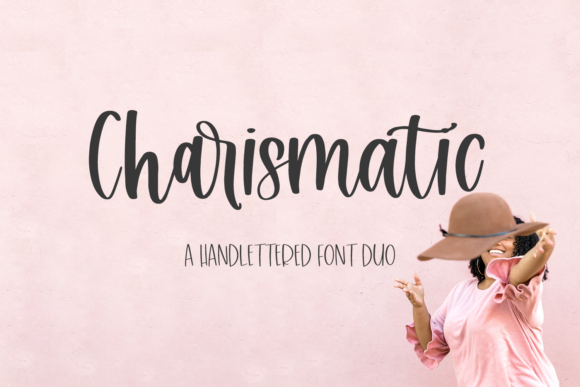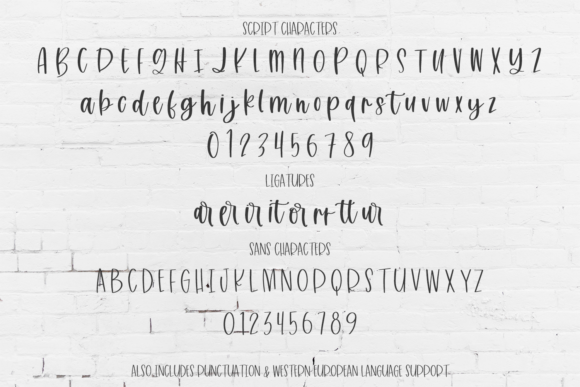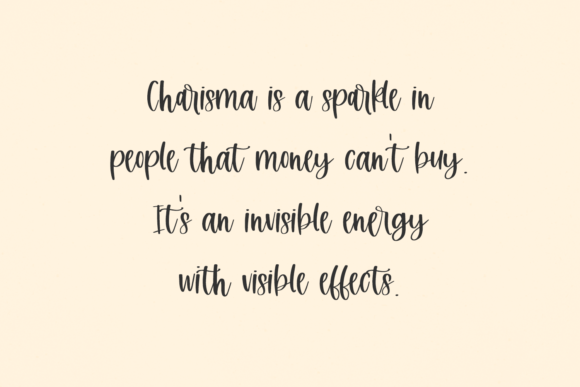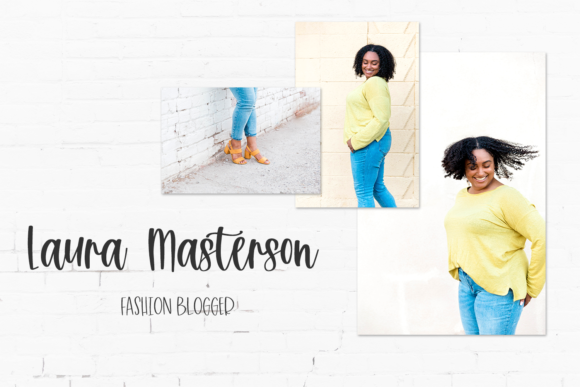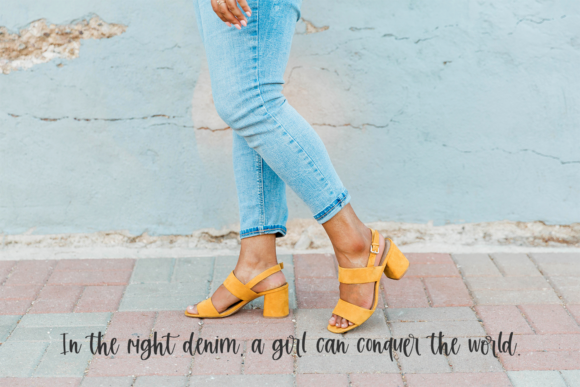
About Charismatic Script Font
Charismatic Script is a bouncy semi-cursive font with a few extra ligatures. Charismatic is a medium-thickness calligraphy style font with a super smooth edge, perfect for vinyl cutting or crafting.
Charismatic is best for:
– logos + branding– crafting projects – header elements that need a handwritten touch– quote graphics for social media